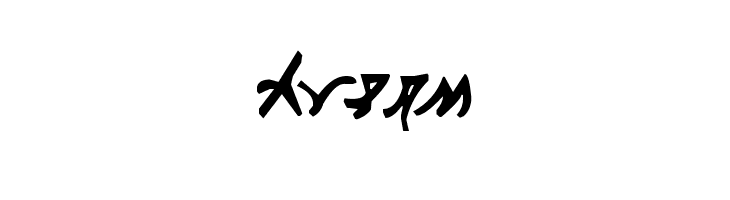
A bold, playful handwritten font with rounded, irregular characters.
A bold, left-slanted font with a dynamic and artistic style.
A playful, casual handwritten font with uneven strokes and a friendly vibe.
A playful, handwritten font with a casual and friendly style.
A playful, hand-drawn font with bold, rounded characters.
A playful, handwritten font with a whimsical and casual style.
A playful, hand-drawn font with a sketchy, artistic style.
A bold, three-dimensional font with a beveled edge and shadow effect.
A bold, dramatic font with sharp serifs and a gothic influence.
设计师偏爱 SuplexDriver Bold, Tristram Leftalic, Pea Dawn, Hotabe and The Adroit,因为其造型干净、适用范围广—— 从品牌识别到落地页、海报都能胜任。